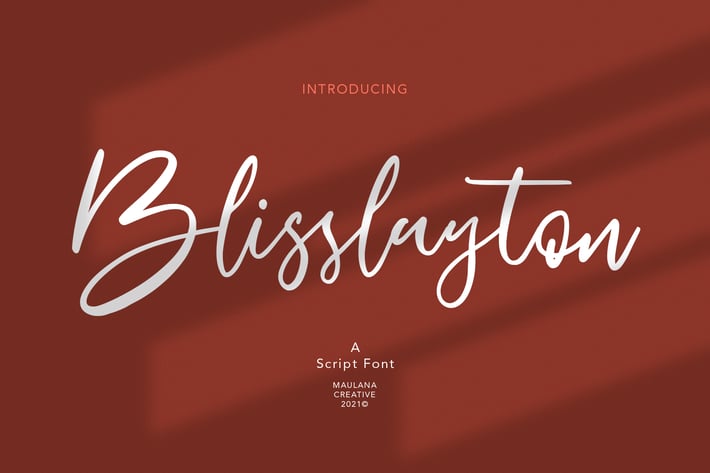
Blisslayton Script Font
Blisslayton is casual script font, with clean bold stroke, slanted and fun character. It has Opentype features ligatures of character, To give you an extra creative work. Blisslayton font support multilingual more than 100+ language. This font is good for logo design, Social media, Movie Titles, Books Titles, a short text even a long text letter and good for your secondary text font with sans or serif. Make a stunning work with Blisslayton font.